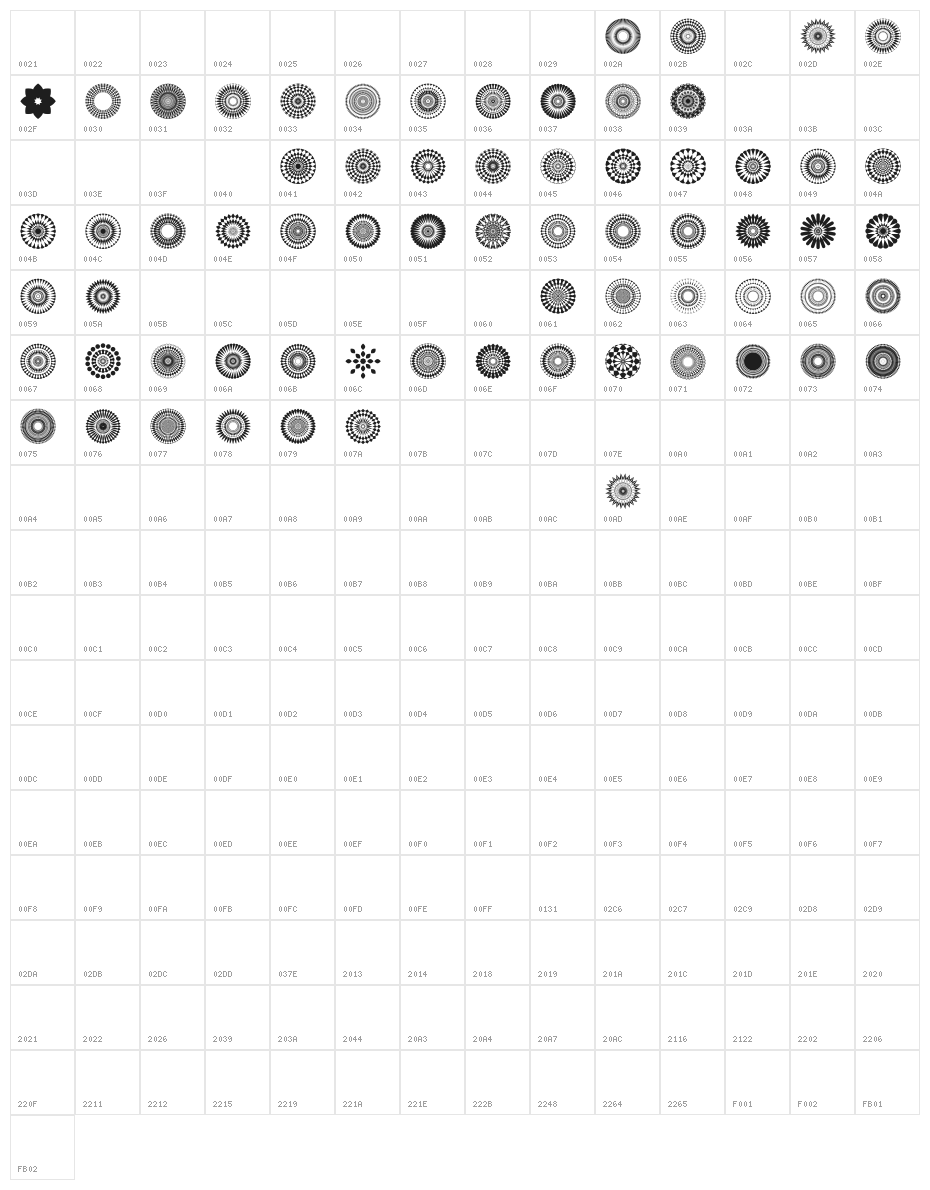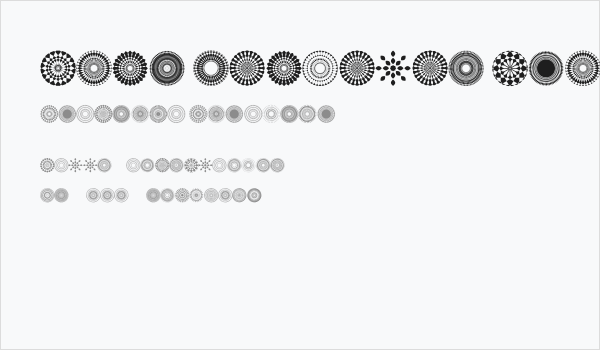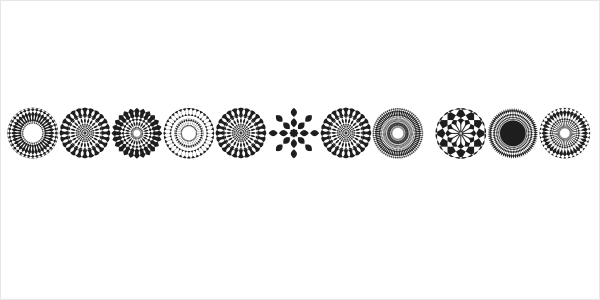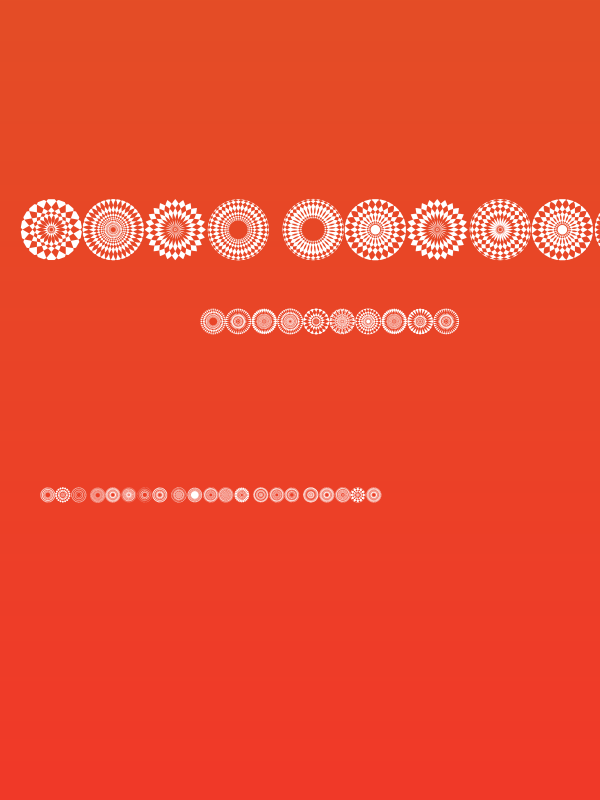
Font Mandalas pro 2018 Font
Font Mandalas pro 2018 Description
A collection of intricate, circular mandala-inspired glyphs with high detail and geometric symmetry, each character represented by a unique ornamental pattern rather than traditional alphanumeric forms.
| Overall Style | Decorative, Ornamental, Geometric |
| Use Case | Logos, Decorative elements, Art projects, Branding, Pattern creation |
| Proposed Projects | Posters, invitations, digital art, meditation materials, decorative borders, branding for wellness or yoga studios. |